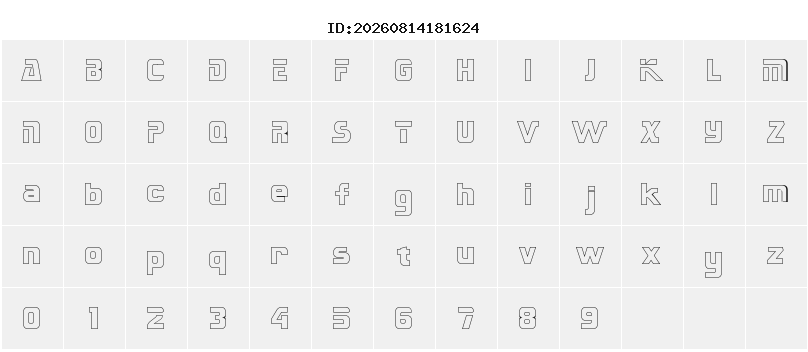
Sternbach Outline Preview
• Font Name: Sternbach Outline
• Full Font Name: Sternbach Outline
• Designer: Neale Davidson
About Sternbach Outline.ttf
Sternbach Outline.ttf is a modern, elegant sans-serif font designed for ultimate readability and visual harmony. Perfect for branding, headlines, web design, and print materials.